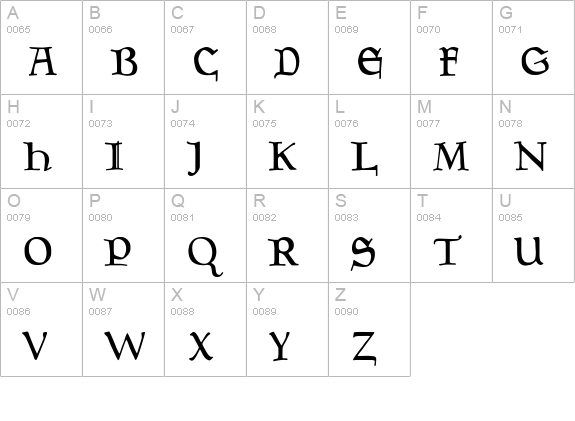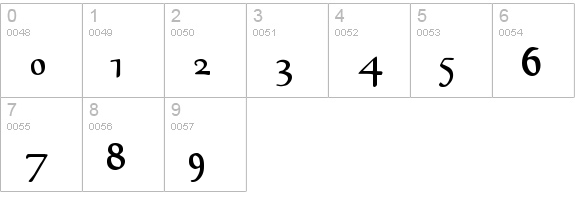
GoudyMedieval-Alternate Font Details
GoudyMedieval-Alternate is a majestic and elegant font that exudes a sense of medieval charm and sophistication. This alternate version features unique flourishes and intricate details that make it stand out from other traditional fonts. Its timeless appeal makes it perfect for a wide range of design projects, from invitations to branding to signage. And the best part? GoudyMedieval-Alternate is available for free download at FontsMarket.com! This means you can add this exquisite font to your collection without any cost. With its rich history and classic aesthetic, GoudyMedieval-Alternate is sure to elevate your designs to a whole new level. Don't miss out on this opportunity to enhance your creative projects with this stunning font. Download it today and let your imagination soar!